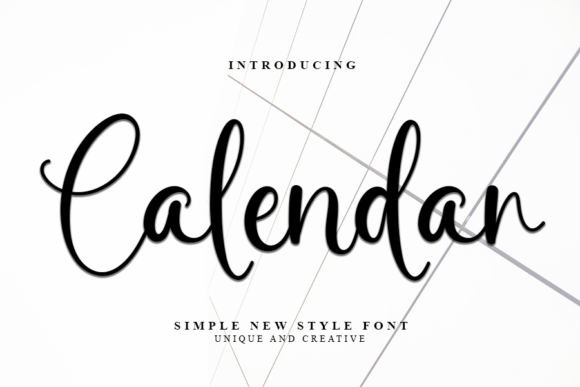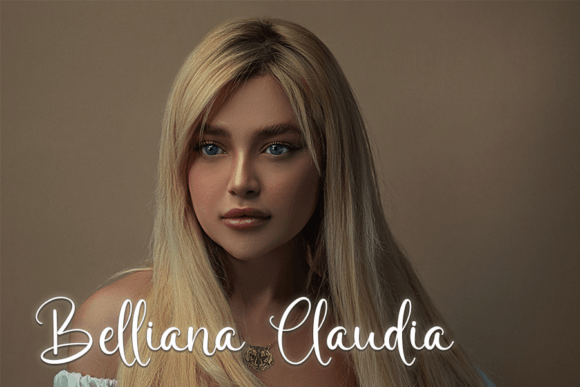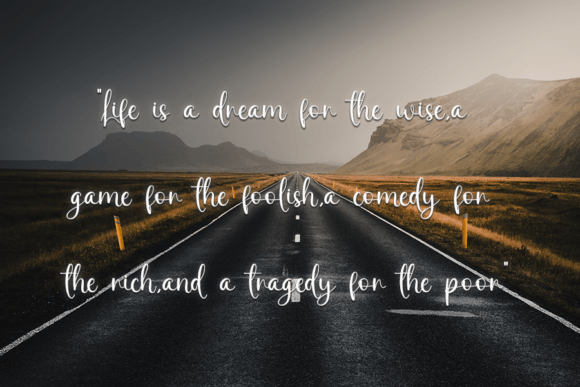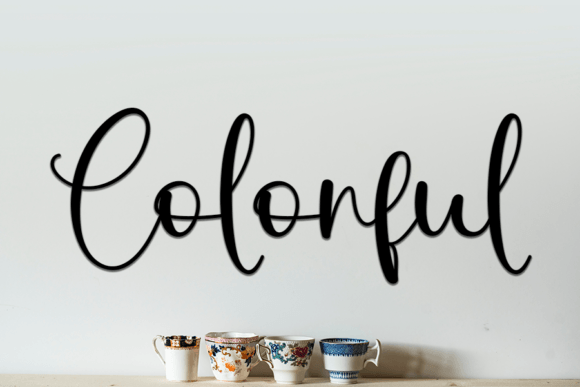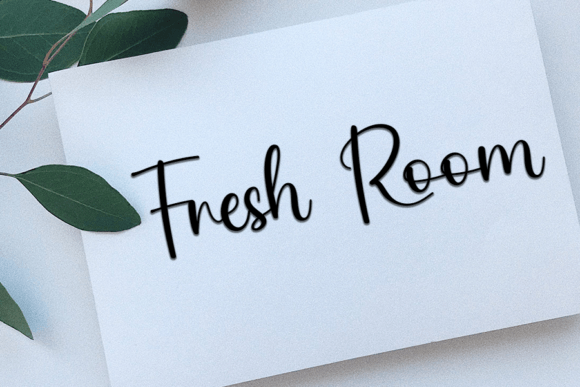
Calendar Font
About Calendar Font
A Beautiful Script Font for Every Project
The Calendar Font is a unique and beautiful script font designed to bring elegance and charm to any creative project. Whether you’re working on crafts, digital designs, presentations, or greeting cards, this versatile font will quickly become your go-to choice for all your design needs. Its flowing, cursive style makes it an excellent choice for personal and professional projects alike.
Perfect for Crafts and Digital Designs
If you’re working on a craft project, the Calendar Font is the perfect companion. Its graceful, handwritten aesthetic adds a touch of elegance to DIY projects, making them stand out in a unique way. Whether you’re designing for home decor, personalized gifts, or custom stationery, this font adds an artistic flair that is sure to impress.
For digital designs, the Calendar Font works just as well. Its stylish script creates eye-catching headlines, logos, and more. Whether you’re designing a website, a social media post, or an advertisement, this font enhances the overall look of your design, making it feel polished and sophisticated.
A Versatile Font for Any Occasion
One of the standout features of the Calendar Font is its versatility. This font can be used for a wide range of occasions, whether for weddings, birthdays, holidays, or even professional projects. Its elegant yet readable design makes it perfect for greeting cards, invitations, and event announcements. No matter the event, the Calendar Font brings an air of refinement to any project.
Ideal for Personal and Professional Use
Whether you’re designing for personal or business purposes, the Calendar Font is a fantastic choice. It bridges the gap between casual and professional designs. The flowing script adds a personal touch, making it great for personal projects, while still maintaining a level of professionalism suitable for branding and advertising.
Easy to Use and Access
The Calendar Font is also easy to use. With its user-friendly design, it’s suitable for both novice and experienced designers. You won’t need to be an expert to incorporate this font into your projects. Its clean lines and clear letterforms make it readable and accessible, ensuring that your designs look great across a variety of mediums, from print to digital.
Perfect for Greeting Cards and Invitations
The Calendar Font is particularly well-suited for greeting cards and invitations. Its elegant script style is perfect for conveying a warm, welcoming message, whether you’re sending out holiday cards, thank-you notes, or birthday invitations. Its charm and sophistication make any message feel more personal and heartfelt.
Adaptable for All Design Needs
From presentations to websites, the Calendar Font adapts effortlessly to different design needs. Whether you’re creating a business logo, event flyer, or creative banner, this font will enhance the visual appeal of your work, helping you create designs that stand out and leave a lasting impression.